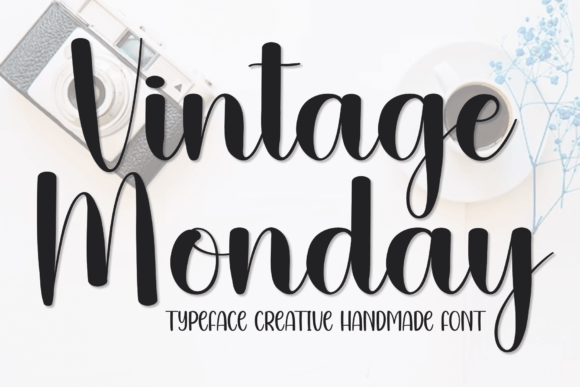
Journey back to a time of timeless charm and elegance with Vintage Monday Font, a captivating script font family that exudes a nostalgic and whimsical allure. Step into a world of creativity and expression, where the gentle curves and delicate details of this font dance across your designs, evoking a sense of warmth and nostalgia.
With its playful and casual style, Vintage Monday Font is perfect for adding a touch of whimsy and personality to your projects. Its friendly and approachable nature makes it ideal for wedding invitations, cards, and any design that calls for a fun and lighthearted touch. Let your imagination soar as you explore the endless possibilities that await with this enchanting font family.
Dive into the depths of Vintage Monday Font's diverse character set, featuring uppercase and lowercase letters, numerals, and an array of punctuation marks, meticulously crafted to maintain a cohesive and harmonious flow throughout your designs. Unleash your creativity and let the graceful strokes of this font guide you towards captivating outcomes.
Embrace the beauty of the past and the excitement of the present with Vintage Monday Font. Its versatility extends beyond traditional applications, making it a perfect choice for branding, logos, social media graphics, and any project that demands a touch of vintage charm. With its ability to effortlessly blend with other design elements, this font becomes a timeless companion in your creative journey.
Indulge in a world of artistic expression and let Vintage Monday Font become your trusted tool for crafting remarkable designs. Its user-friendly nature makes it accessible to both seasoned designers and those just starting their creative journey. Experience the joy of effortless creativity as you witness your ideas transform into stunning visual masterpieces.